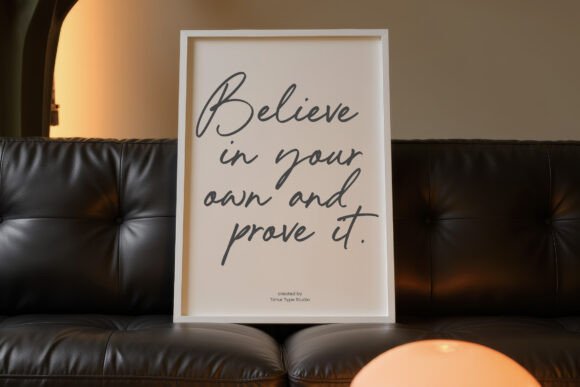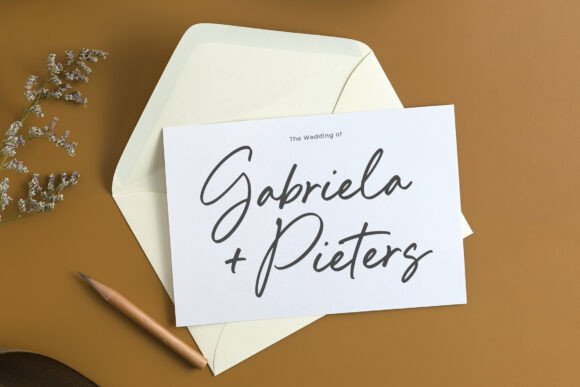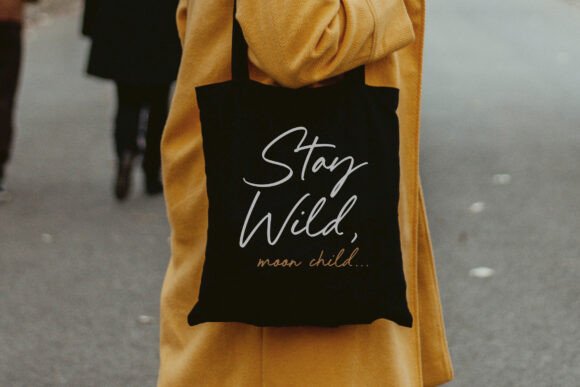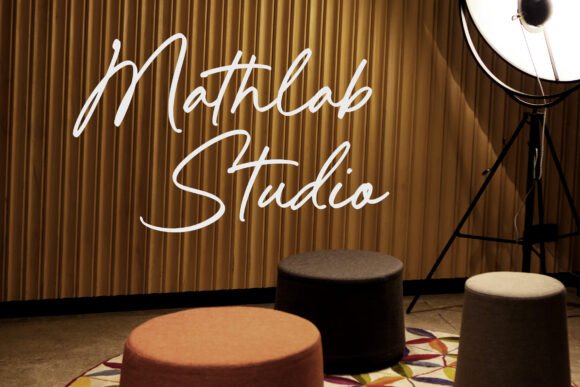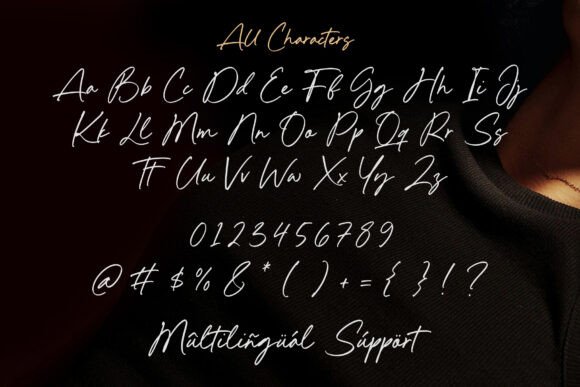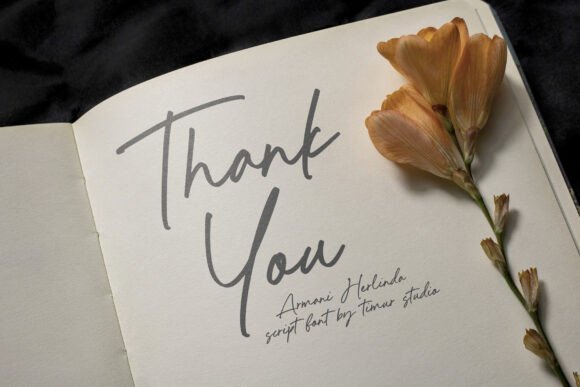
Unleashing Your Creative Potential with Armani Herlinda Font
Have you ever stared at a blank page, waiting for the perfect font to inspire your next creative project? That’s exactly what happened to me the other day. I was brainstorming ideas for a new branding campaign, and suddenly, the perfect font popped into my mind. It was elegant, sophisticated, and had a unique touch that set it apart from the rest. Little did I know, I had stumbled upon the beautiful Armani Herlinda Font.
This stunning modern handwritten script font is designed to add a touch of refinement to any design project. With its smooth curves and natural stroke variation, Armani Herlinda Font is perfect for branding, invitations, logos, and more. Its versatility and unique charm make it a valuable asset for designers looking to elevate their work.
Armani Herlinda Font Key Features
- Font Family: Armani Herlinda
- Unique Characteristics: Elegant, sophisticated, and luxurious design, with a touch of Italian flair
Armani Herlinda Font Review
Overall, I’m impressed with the Armani Herlinda Font, but it’s not without its flaws. Let’s start with the good stuff ✨.
- Stunning Italian flair: The font embodies the luxury and sophistication of the Armani brand.
- Unique character set: Herlinda’s distinct letterforms make it perfect for creating eye-catching designs.
- Good legibility: Despite its elegant appearance, the font remains easy to read, even at smaller sizes.
However, there are some limitations ⚠️.
- Limited language support: Herlinda only supports a few languages, which might be a concern for global designs.
- No bold or italic variations: While the font is beautiful, it would be great to have more weight options for emphasis.
- Not ideal for small text: Herlinda’s elegant lines can make small text appear cluttered or hard to read.
Overall, the Armani Herlinda Font is a stunning choice for designs that require a touch of Italian luxury. While it may have some limitations, its unique character set and good legibility make it a great addition to any designer’s toolkit.
Tips for Getting the Most Out of Armani Herlinda Font
Armani Herlinda Font is a elegant and sophisticated font that works well for luxury brands and high-end designs. Here are some tips for getting the most out of it:
1. Use it for titles and headings to add a touch of sophistication.
2. Pair it with a clean and simple font for body text to create a balanced design.
3. Experiment with different font sizes and styles to create a unique look.
Armani Herlinda Font is commonly used for:
1. Luxury brand designs, such as fashion and jewelry logos.
2. High-end product packaging and labels.
3. Elegant wedding invitations and stationery
Alternatives to Armani Herlinda Font
The Great Vibes Font is a modern script font that is perfect for creating a friendly and approachable feel. It’s ideal for use in titles, headings, and other text where a touch of elegance is required. The Great Vibes Font is similar to Armani Herlinda Font in its fluid and dynamic nature, but it has a more relaxed and casual tone.
The Pacifico Font is a beautiful and elegant script font that is reminiscent of the Armani Herlinda Font. However, it has a more refined and sophisticated feel, making it perfect for use in high-end branding and design projects. The Pacifico Font is ideal for use in titles, headings, and other text where a sense of luxury and sophistication is required.